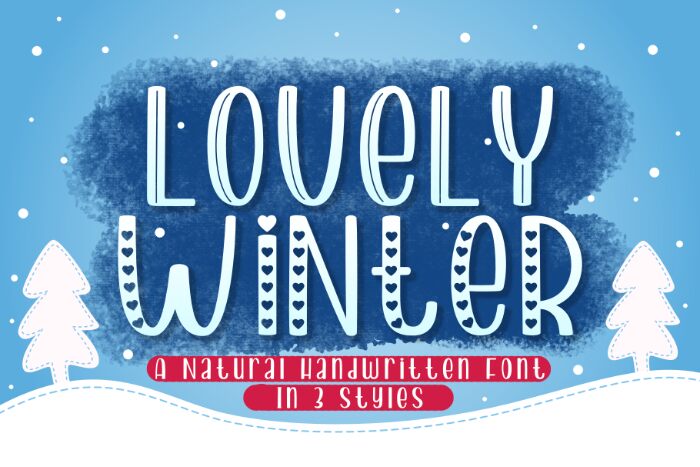
Lovely Winter font family by Madatype Studio captures the true playful spirit of the holiday with decorative heart motifs. The premium quality font family combines handwritten and serifs letter styles for creating eye-catching and idyllic typographic designs. The versatile family comes with a complete character set, ligatures, numerals, punctuations, multilingual accents, and much more.